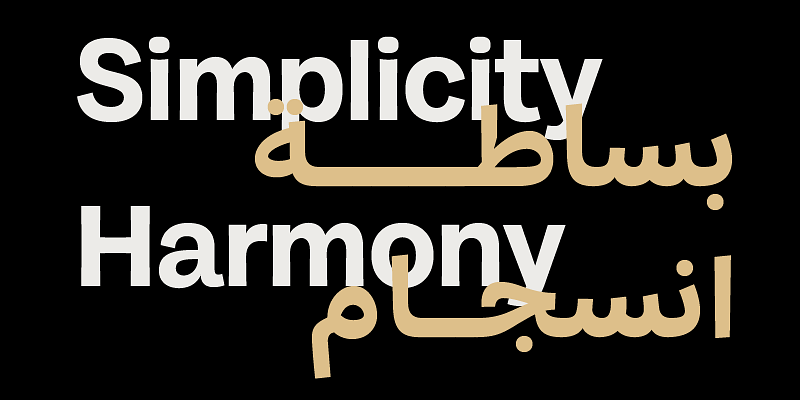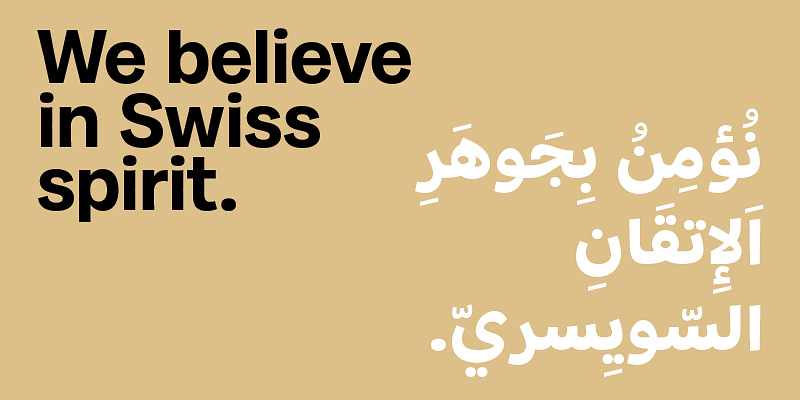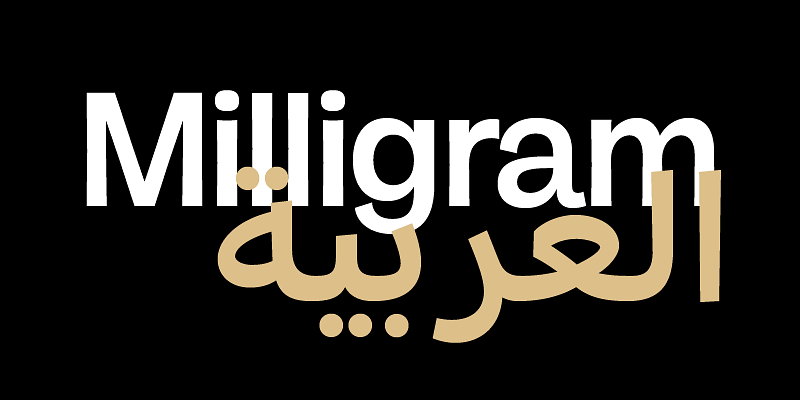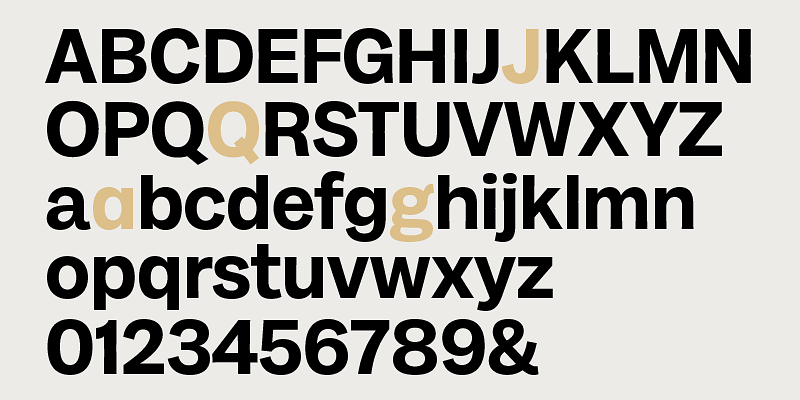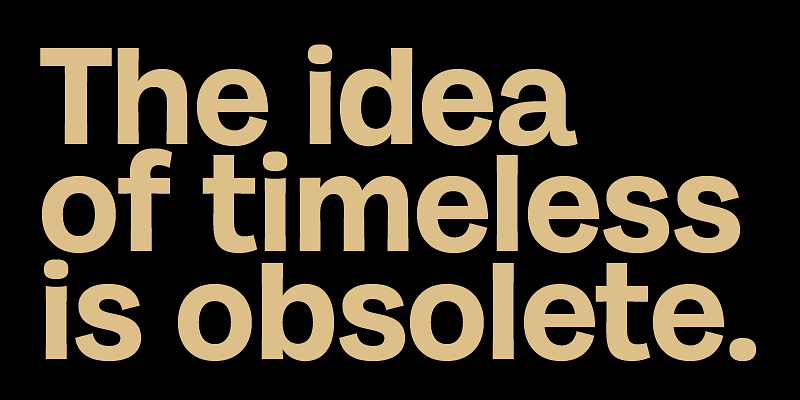
Milligram is a grotesque sans serif that steps away from strict Swiss orthodoxy: slanted terminal cuts, slightly tapered verticals, round dots and soft curve joins give the typeface a warm, human texture while staying fully current in rhythm and proportions. Milligram is perfect for branding projects across media and language systems, thanks to its wide language coverage: it includes not only Latin glyphs but also Greek and Cyrillic ones, as well as Arabic glyphs that translate modernist principles through the Naskh tradition.